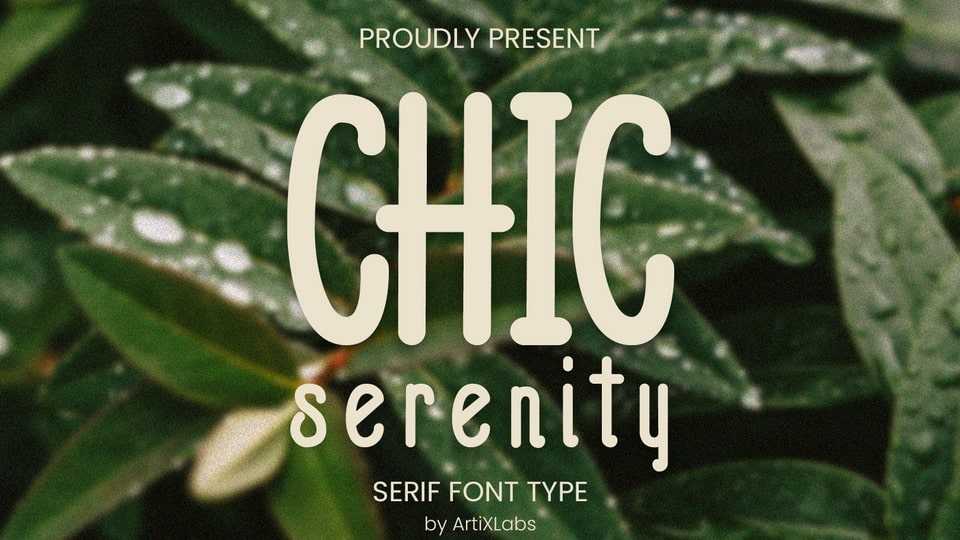
Download Chic Serenity font, a simple and cute hand-drawn typeface that brings warmth and charm to every letter with its soft, organic strokes and a natural flow.
Designer: ArtiXLabs